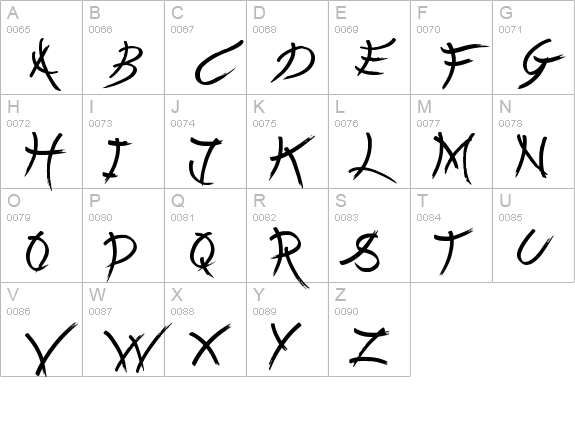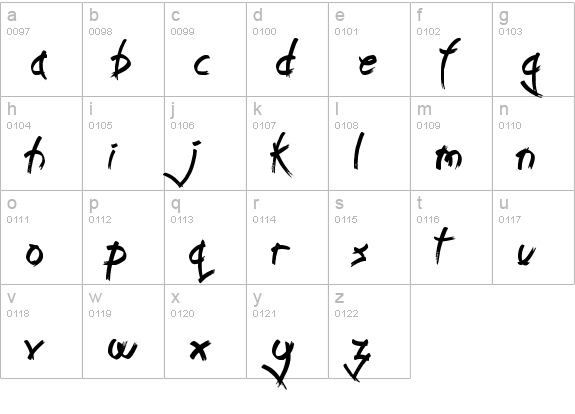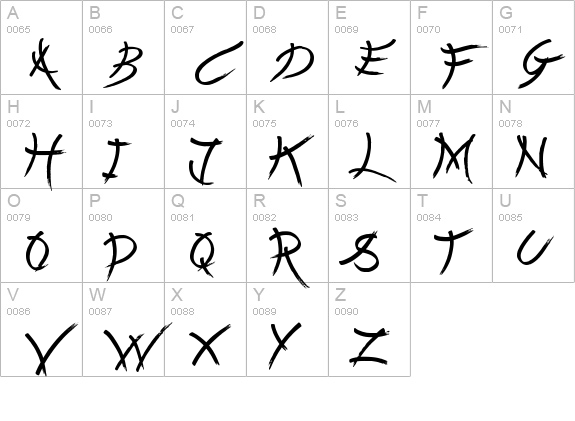
Got Bacon is a free for personal use font in the Script > Graffiti category. It has been downloaded 25 times and is available for Windows, Mac and Linux.
Introducing the delectably delightful Got Bacon font! This sizzling typeface is the perfect blend of crispy bacon goodness and bold, eye-catching design. With its unique and playful letterforms, Got Bacon will add a savory touch to any project, whether it's a menu for a trendy brunch spot or a quirky branding campaign for a foodie blog. But what makes Got Bacon even more irresistible is the fact that it is completely free! Yes, you heard that right – this mouthwatering font can be yours without spending a single penny. You can freely download it at FontsMarket.com, the go-to destination for all your font needs. Crafted with meticulous attention to detail, Got Bacon offers a wide range of characters and ligatures, allowing you to create the perfect combination of crispy curves and flavorful flourishes. Its versatility knows no bounds, as it can seamlessly adapt to both digital and print mediums, making it an essential ingredient for designers and creatives alike. So, whether you're a bacon enthusiast, a typography aficionado, or simply someone who loves to add a touch of deliciousness to their designs, Got Bacon is the font for you. Remember, it's not just bacon that makes everything better – it's Got Bacon font! Download it now at FontsMarket.com and let the sizzle begin.